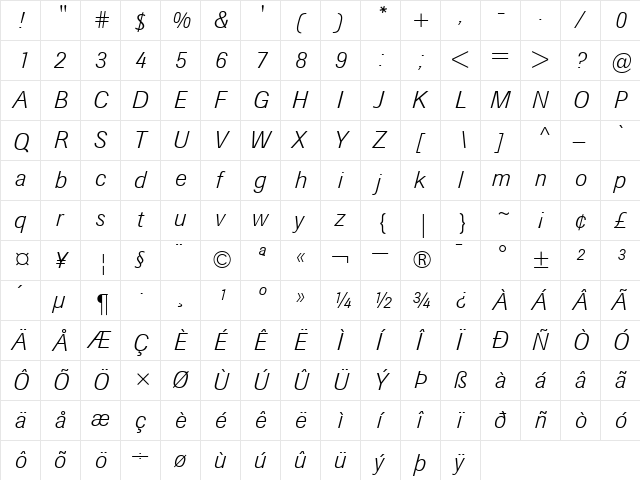
BertholdImago-Light LightItalic Font Preview
Design Context for BertholdImago-Light Typeface
BertholdImago-Light is a composed and adaptable typeface that performs quietly and consistently across a wide range of design contexts. Its italic angle brings a sense of urgency and motion to the letterforms. Its slender proportions lend an understated elegance to any composition.